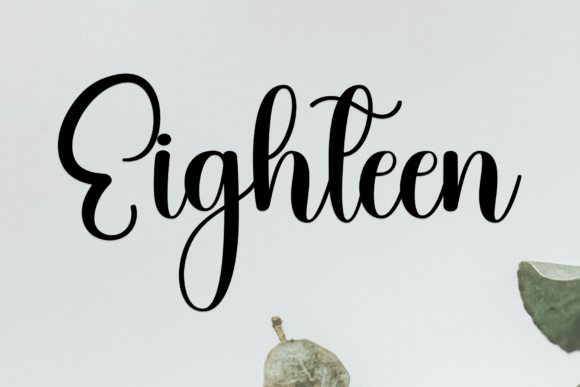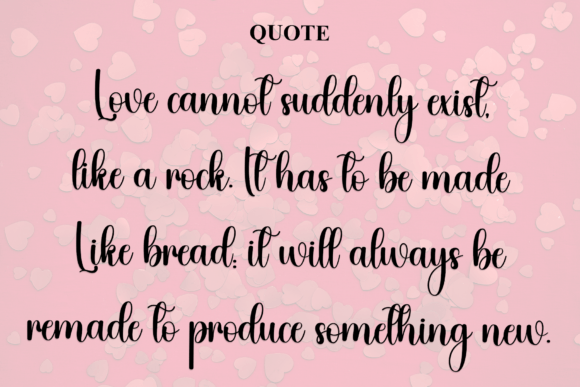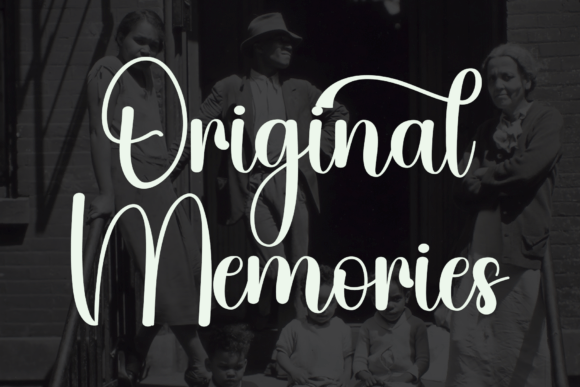
The Ultimate Guide to Big Family Font: Elevate Your Designs with Elegance
I’ll never forget the time I was working on a wedding invitation project, and my client asked for a font that exuded elegance and sophistication. I scoured the internet, trying out font after font, but nothing seemed quite right. That was until I stumbled upon Big Family Font. ✨ This beautiful, refined handwritten font has been a game-changer for my designs, and I’m excited to share its magic with you.
A Honest Review of Big Family Font
So, what makes Big Family Font so special? Let’s dive into the good stuff and a few quirks I’ve discovered.
• ✅ Classy, elegant, and modern look that’s perfect for logos, branding, invitations, and more
• ✨ PUA encoded for easy access to amazing glyphs and ligatures
• 💻 Highly versatile and can be used for both digital and print projects
• 👍 Beautifully crafted with attention to detail and a keen eye for design
• 🤔 Some users may find the font a bit too ornate for certain projects
• ⚠️ May not be suitable for very small font sizes or body text
The Designer Inspiration Behind Big Family Font
Big Family Font was crafted with love and attention to detail by a talented designer who aimed to create a font that would bring a touch of elegance to any project. The designer’s inspiration came from classic calligraphy and modern typography, resulting in a font that’s both timeless and trendy.
Q: What is Big Family Font?
A: Big Family Font is a beautiful, refined handwritten font perfect for logos, branding, invitations, and more.
Q: Is Big Family Font PUA encoded?
A: Yes, Big Family Font is PUA encoded, making it easy to access amazing glyphs and ligatures.